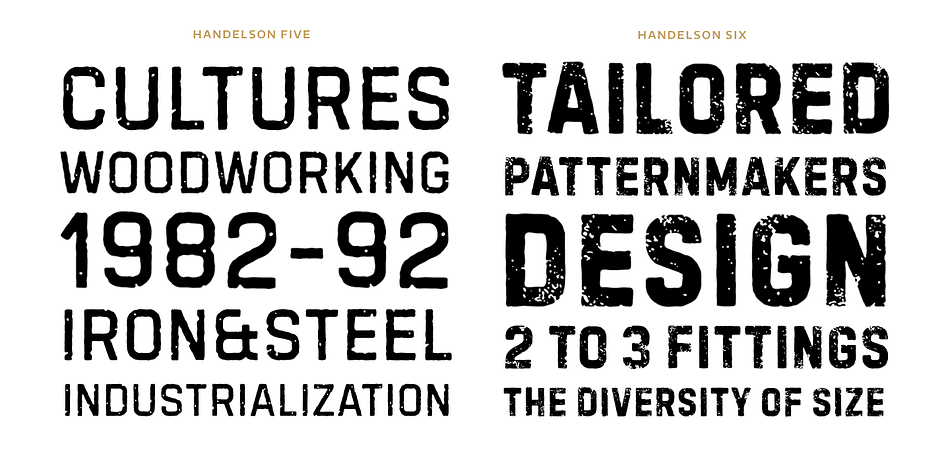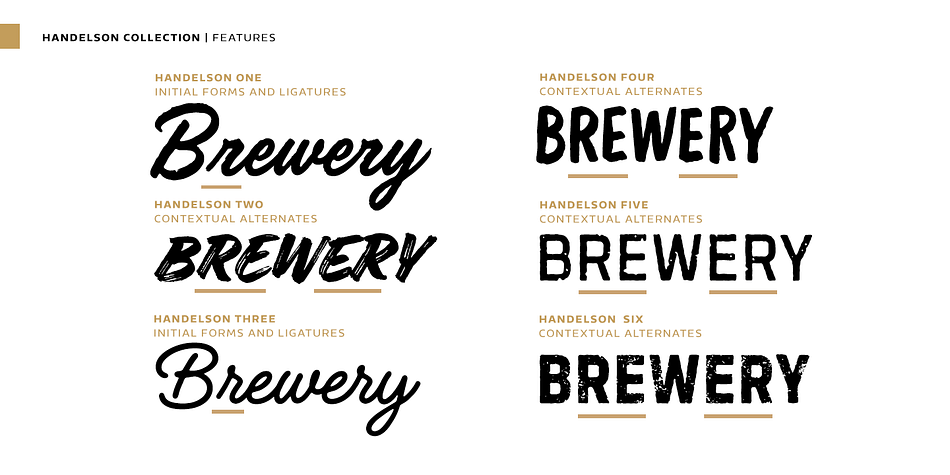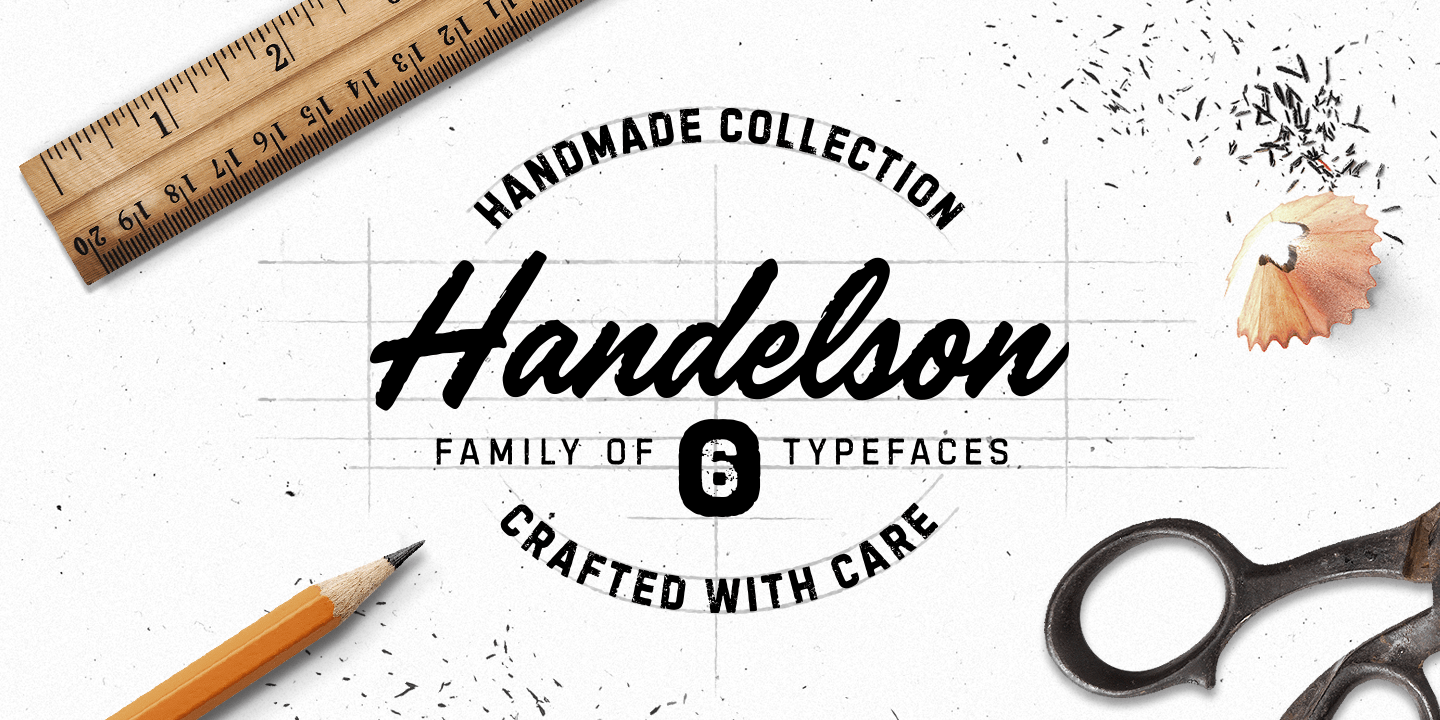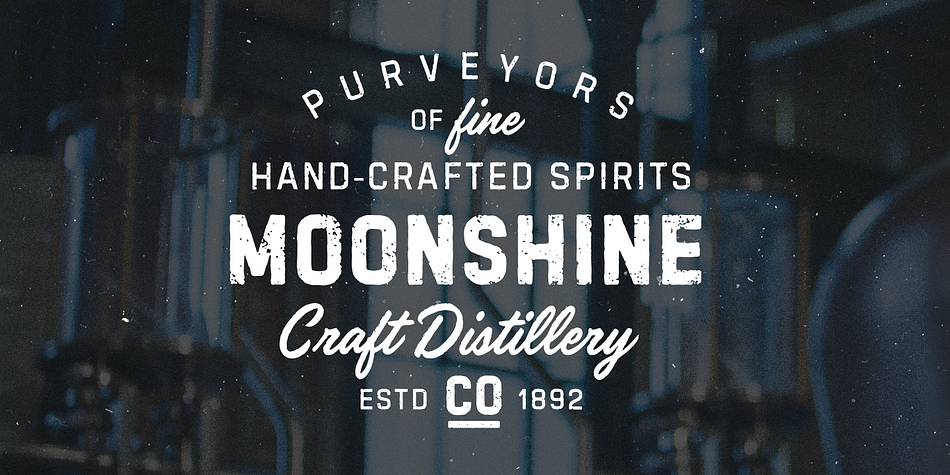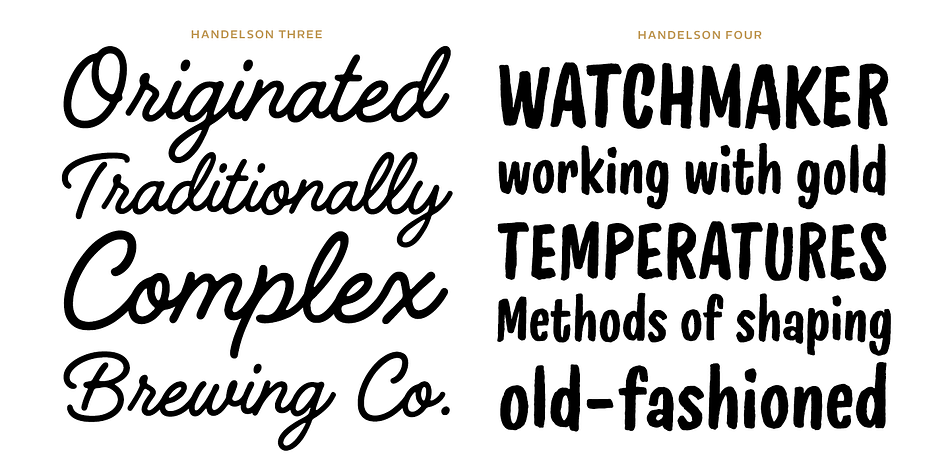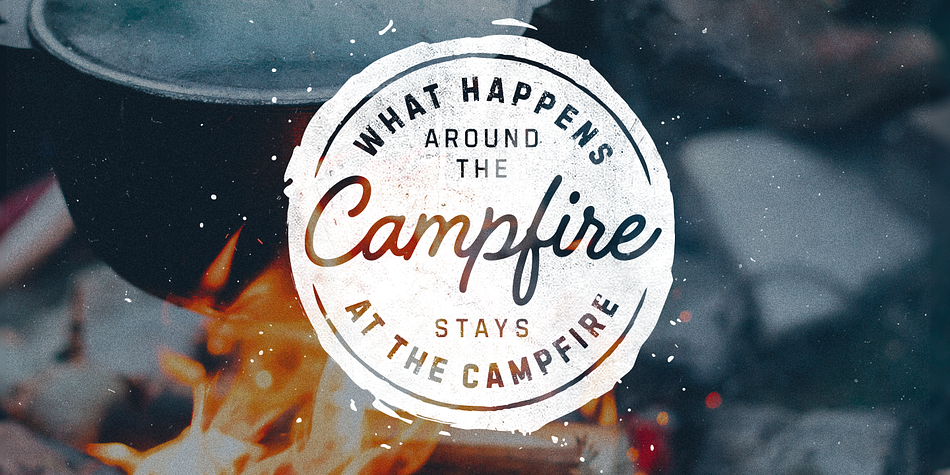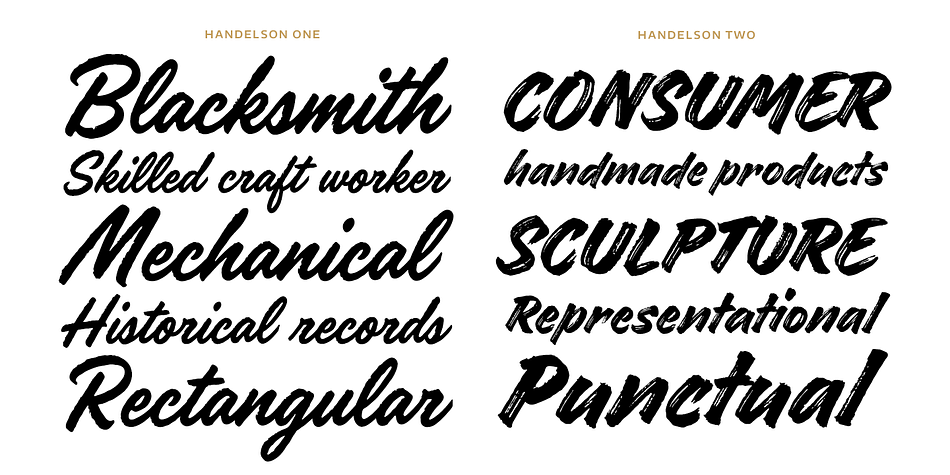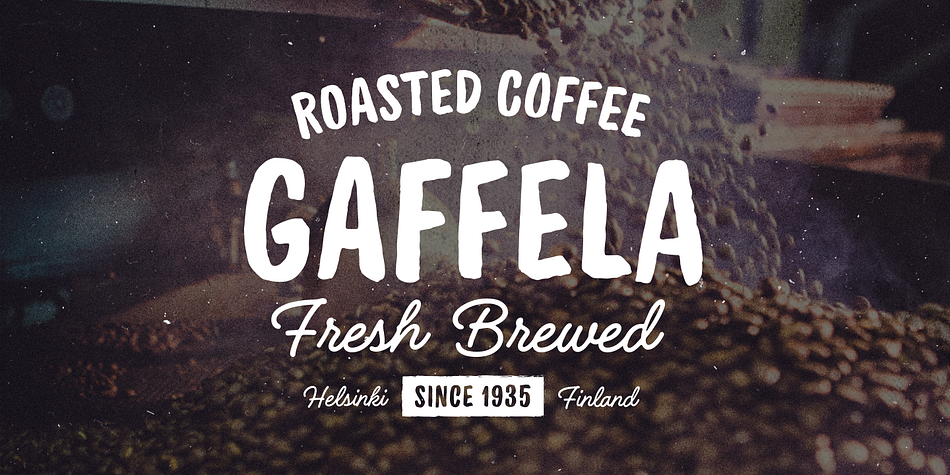
Handelson is a hand drawn, script and hand display font family. This typeface has six styles and was published by Mika Melvas.
Handelson is a collection of 6 handmade typefaces with authentic and organic feel. It contains three scripts, one non-connected script and two all caps geometric sans serifs (Block letters). Textures and rough edges are emulating handwritten and printed looks. By combining these fonts you can make diverse typographic solutions and elements with unified style.
All the non-connected fonts; Handelson Four, Handelson Five and Handelson Six has two sets of characters. By enabling Contextual Alternates from the OpenType panel you can make these letters to vary randomly to make your text look more like a real handwriting.